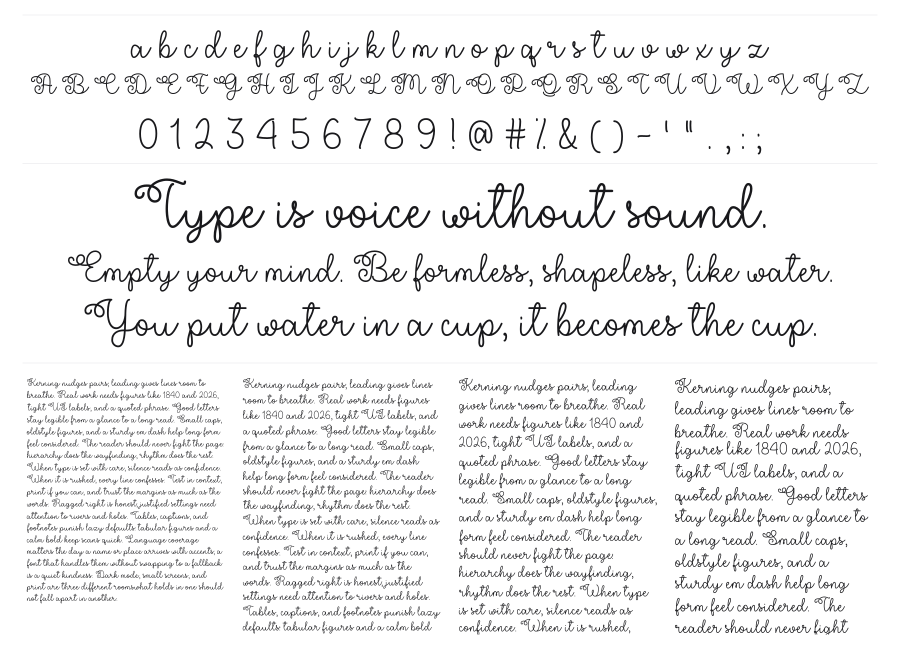
Flower Shop
Flower Shop is a flowing connected casual script with looping strokes and a light, airy feel. Its near-monoweight lines and continuous cursive rhythm give it a handcrafted warmth without feeling overly formal. A natural choice for boutique branding, packaging, and any project that wants personality without pretension.